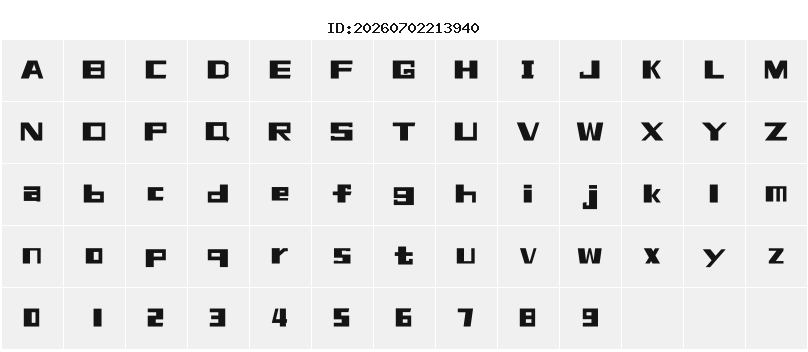
• Font Name: A004-Sounso Diamond
• Full Font Name: A004-Sounso Diamond
• Manufacturer: 上首造字
About A004-Sounso Diamond.ttf
A004-Sounso Diamond.ttf is a modern, elegant sans-serif font designed for ultimate readability and visual harmony. Perfect for branding, headlines, web design, and print materials.